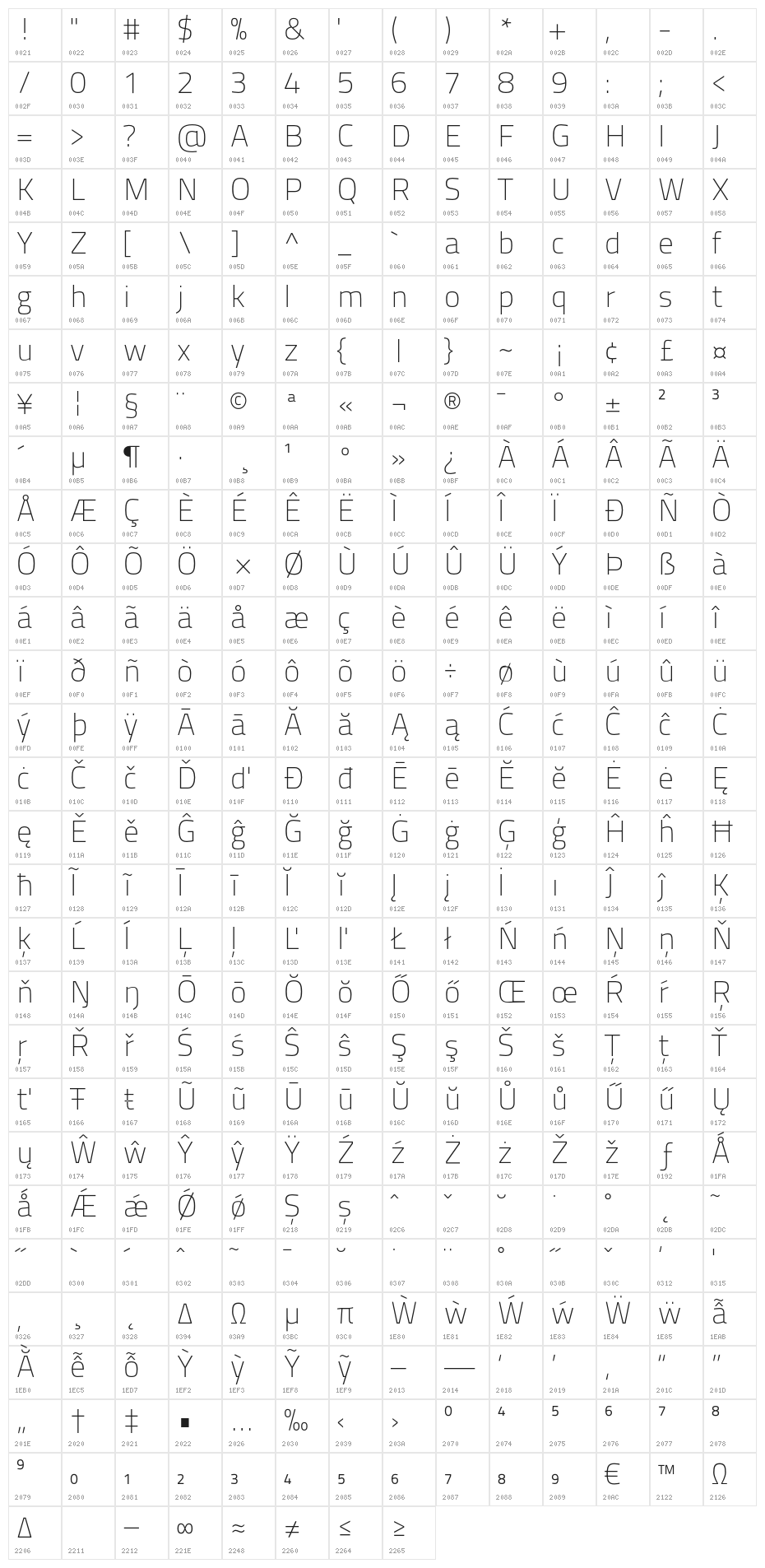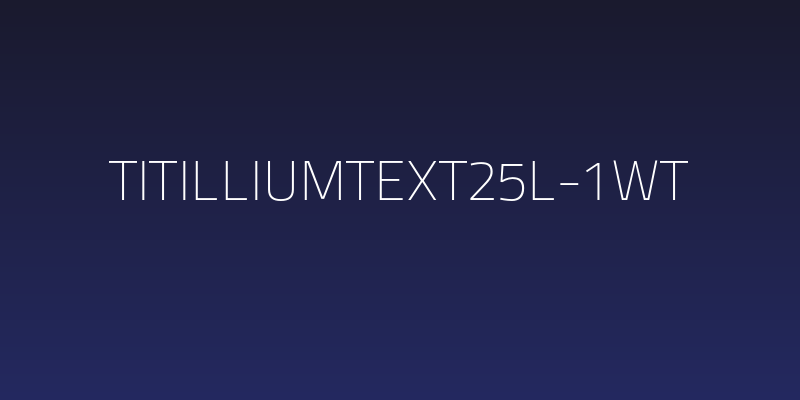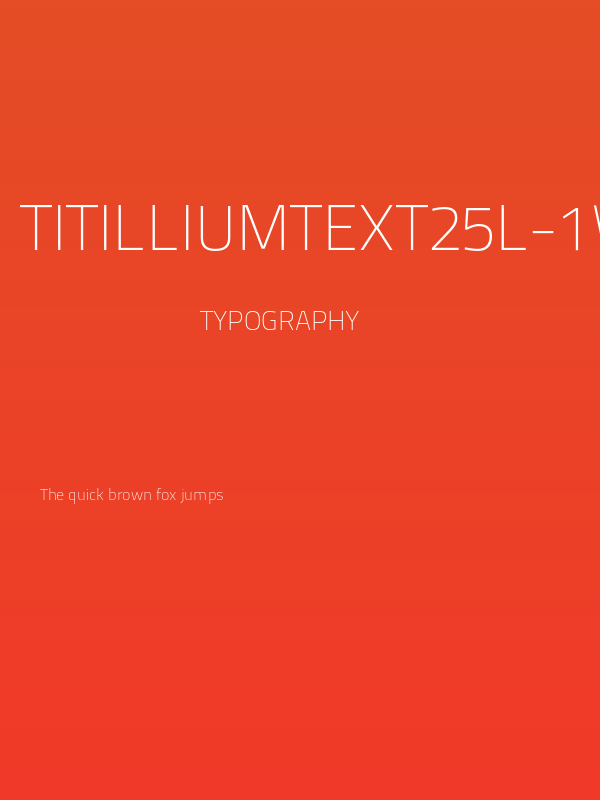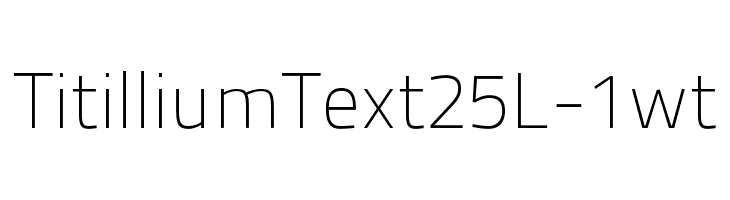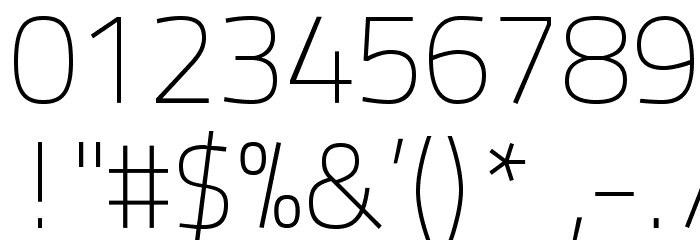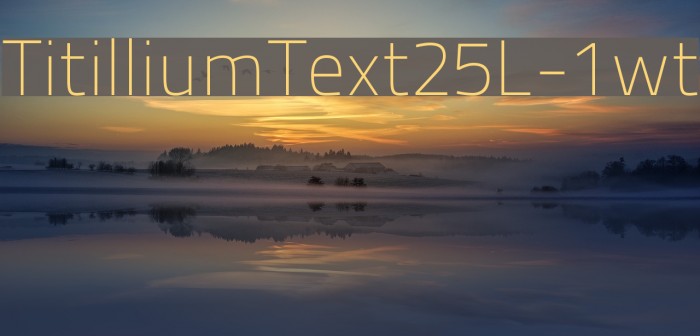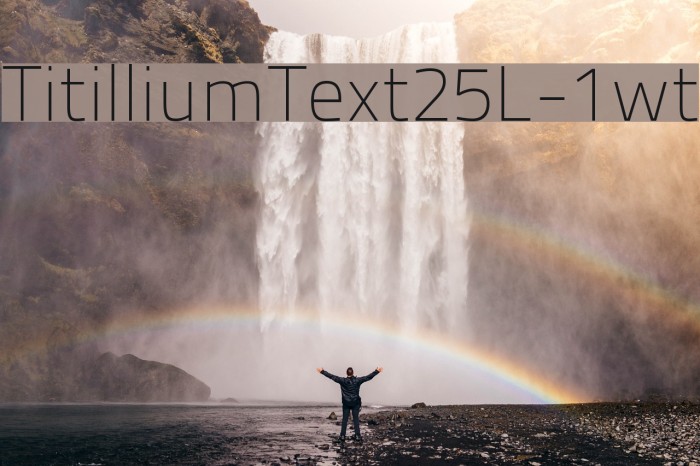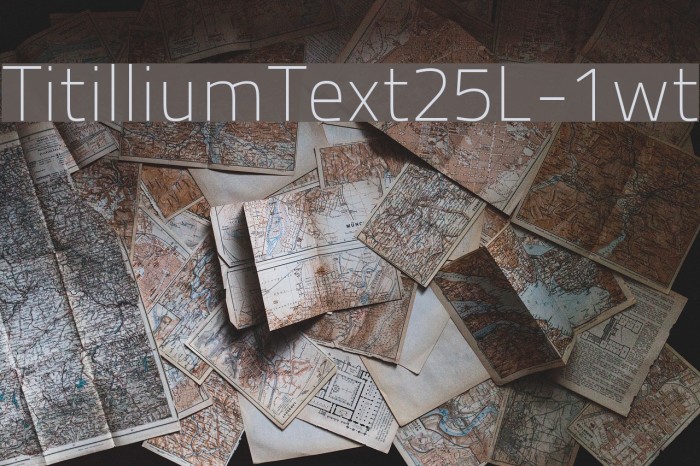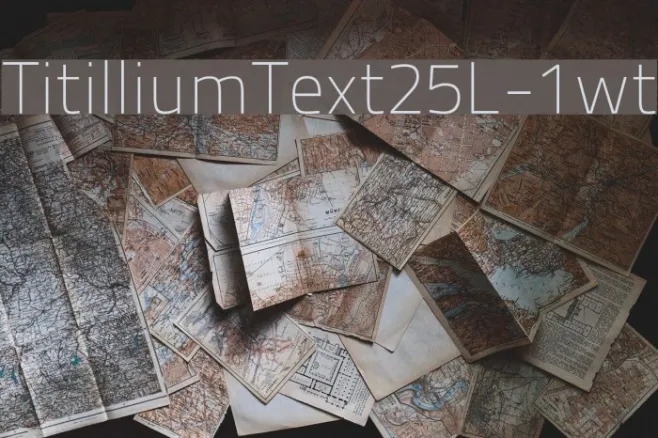
TitilliumText25L-1wt Font
TitilliumText25L-1wt Description
This font features a clean and modern sans-serif design with a geometric structure. The characters are well-balanced, with consistent stroke widths and a harmonious appearance. The uppercase letters are tall and slightly condensed, while the lowercase letters maintain a uniform height, contributing to a cohesive look. The numerals are clear and easily distinguishable, making them suitable for various applications. The special characters are designed with simplicity and clarity in mind, ensuring readability across different contexts. Overall, this font exudes a contemporary and professional vibe, making it versatile for numerous design projects.
| Use Case | Headlines, Body text, Logos |
| Proposed Projects | Ideal for corporate branding, web design, digital interfaces, and editorial layouts. |